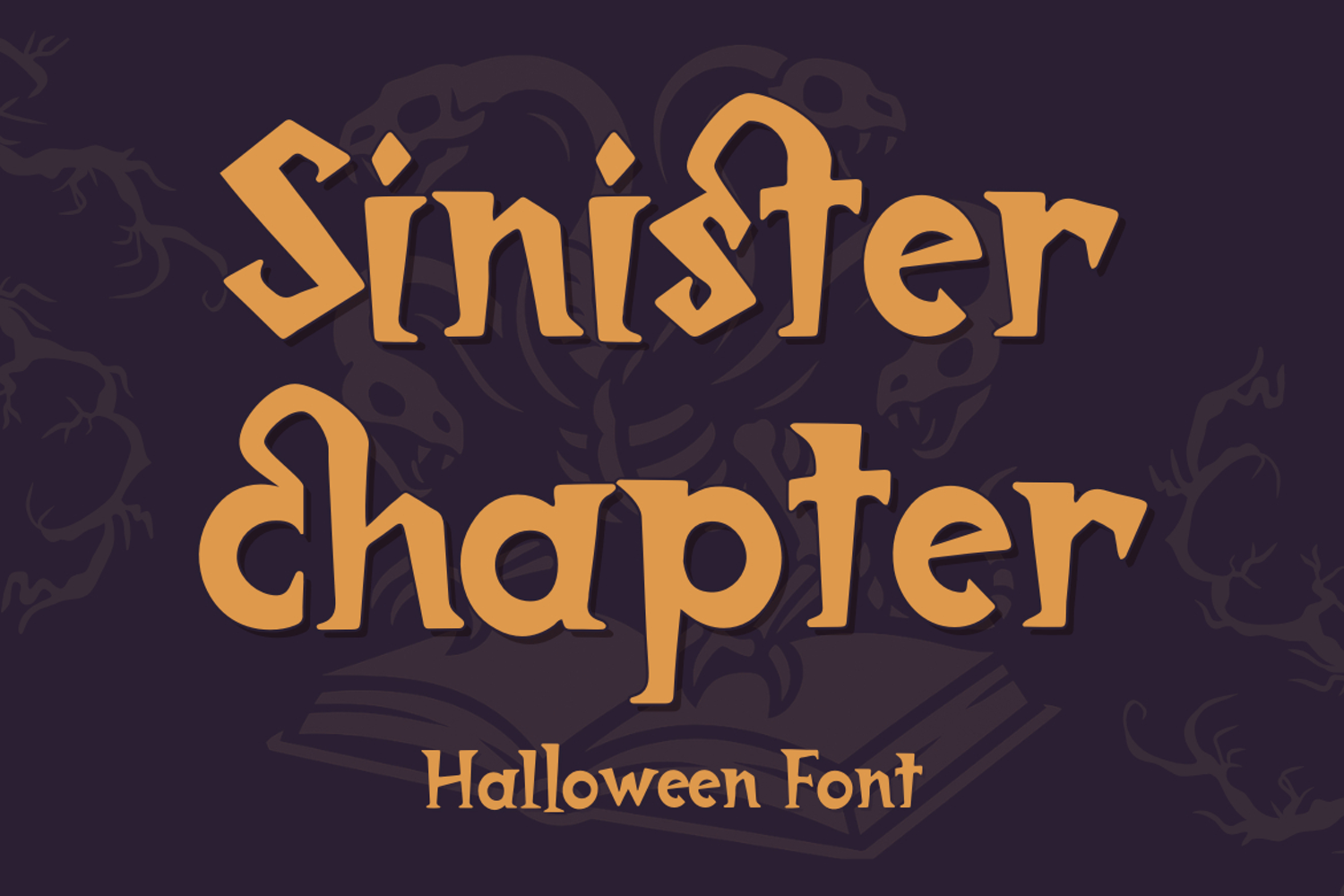
Sinister Chapter - Halloween Font | Web Font
Unleash a dark and playful vibe with **Sinister Chapter – Halloween Font**. Crafted with eerie curves and sharp edges, this display typeface captures the spirit of Halloween with a mix of mystery and fun. Perfect for **spooky posters, party invitations, horror quotes, or seasonal branding**.
Sinister Chapter combines readability with unique decorative details. The font includes uppercase, lowercase, numbers, punctuation, ligatures and multilingual support, making it **versatile for both creative and professional Halloween projects**.
_Halloween party invitations and flyers, Horror movie or game title designs, Spooky quotes and social media posts, Trick-or-treat posters and event promos, Children’s Halloween activity sheets, Seasonal branding and marketing materials, Decorative headlines for haunted events_